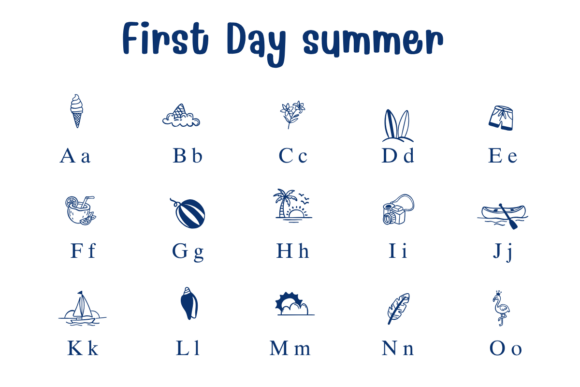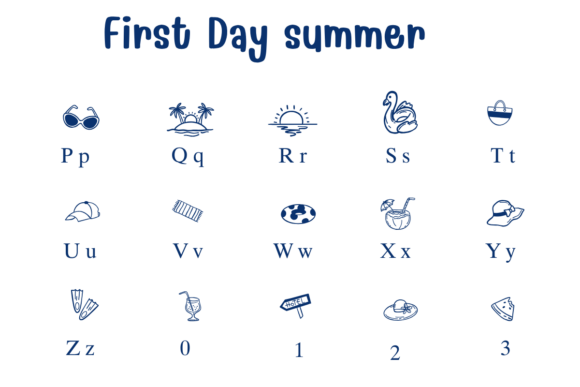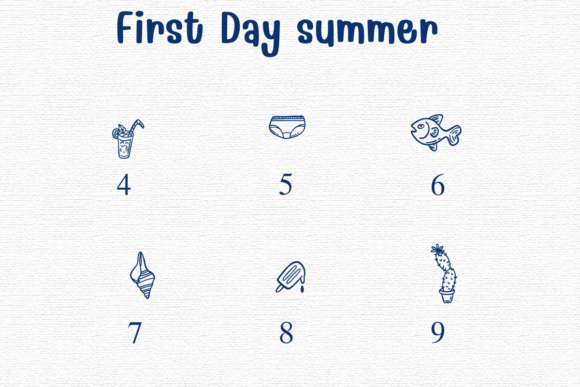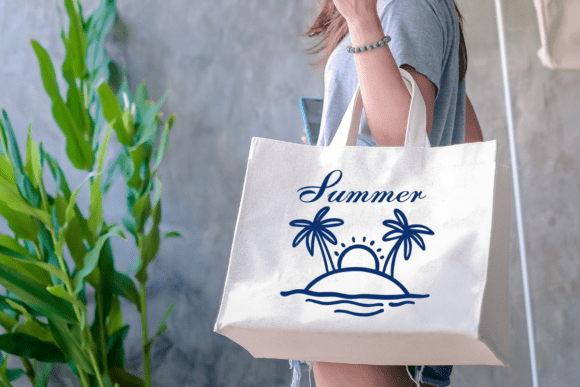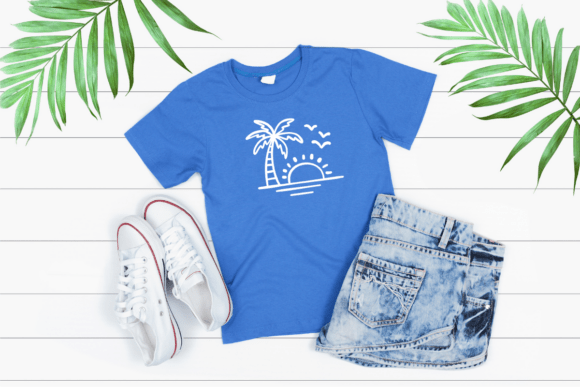
Welcome to the Sunny Side of Font Design: A Deep Dive into First Day of Summer Font
Ah, the joys of designing for summer! The sun is shining, the beach is calling, and your creative projects need a dash of tropical flair. I still remember the summer I spent hours searching for the perfect font to bring my client’s beach-themed party invitations to life. It was like looking for a needle in a haystack – until I stumbled upon First Day of Summer Font. This delightful tropical dingbats font has been a game-changer for me, and I’m excited to share its awesomeness with you! 🌞
What Makes First Day of Summer Font So Special?
First Day of Summer Font is not your conventional lettering font. It’s a playful specialty font that turns your keyboard into a complete, ready-to-use vector art kit packed with hand-drawn beach vacation doodles. With this font, each keystroke instantly unlocks a uniquely charming sketch, including retro cameras, sun hats, tropical cocktails, palm trees, surfboards, ice cream cones, flamingos, and ocean seashells. 🌴
- ✨ Instant Tropical Vibes: This font brings the beach party to your designs with its extensive collection of summer-themed glyphs.
- ✅ Easy to Use: The font is meticulously optimized with crisp, smooth monoline contours and consistent line weights, making it perfect for cutting on electronic plotting machines like Cricut and Silhouette.
- 🌈 Versatile: From personalizing summer camp t-shirts to designing tropical pool party invitations, this font is a versatile design toolkit that can be used for various creative projects.
- 🤔 Learning Curve: With so many glyphs to explore, it might take some time to get familiar with the font’s capabilities.
- ⚠️ Glyph Overload: With great power comes great responsibility – be careful not to overdo it with the glyphs, or your design might end up looking cluttered.
The Designer Inspiration Behind First Day of Summer Font
The story goes that the designer behind First Day of Summer Font was inspired by the carefree summers of their childhood, spent playing on the beach and enjoying the sunshine. They wanted to create a font that would capture the essence of those happy summer days and bring a touch of tropical flair to designs. And so, First Day of Summer Font was born! 🌊
Q: What is First Day of Summer Font?
A: First Day of Summer Font is a tropical dingbats font that converts your keyboard into a complete, ready-to-use vector art kit packed with hand-drawn beach vacation doodles.
Q: What kind of projects can I use First Day of Summer Font for?
A: You can use First Day of Summer Font for a variety of projects, including personalizing summer camp t-shirts, designing tropical pool party invitations, creating custom beach cooler vinyl decals, planning scrapbook summer layouts, and building cheerful seasonal merchandise graphics.
Q: Is First Day of Summer Font easy to use?
A: Yes, First Day of Summer Font is designed to be easy to use, with crisp, smooth monoline contours and consistent line weights that make it perfect for cutting on electronic plotting machines like Cricut and Silhouette.